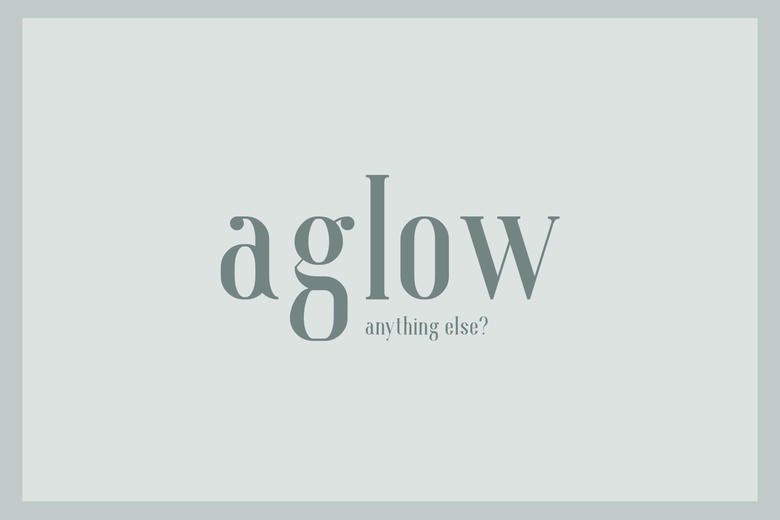
Aglow Font
Aglos is a classic-style serif that comes in 4 different variations. It’s easy to read and works well as body text or as paragraphs. This typeface is perfect for elegant logos, branding, travel promotions, layout magazines, beauty products, product packaging, quotes, or simply as a stylish text overlay onto any background image.
Aglow Serif Font Family